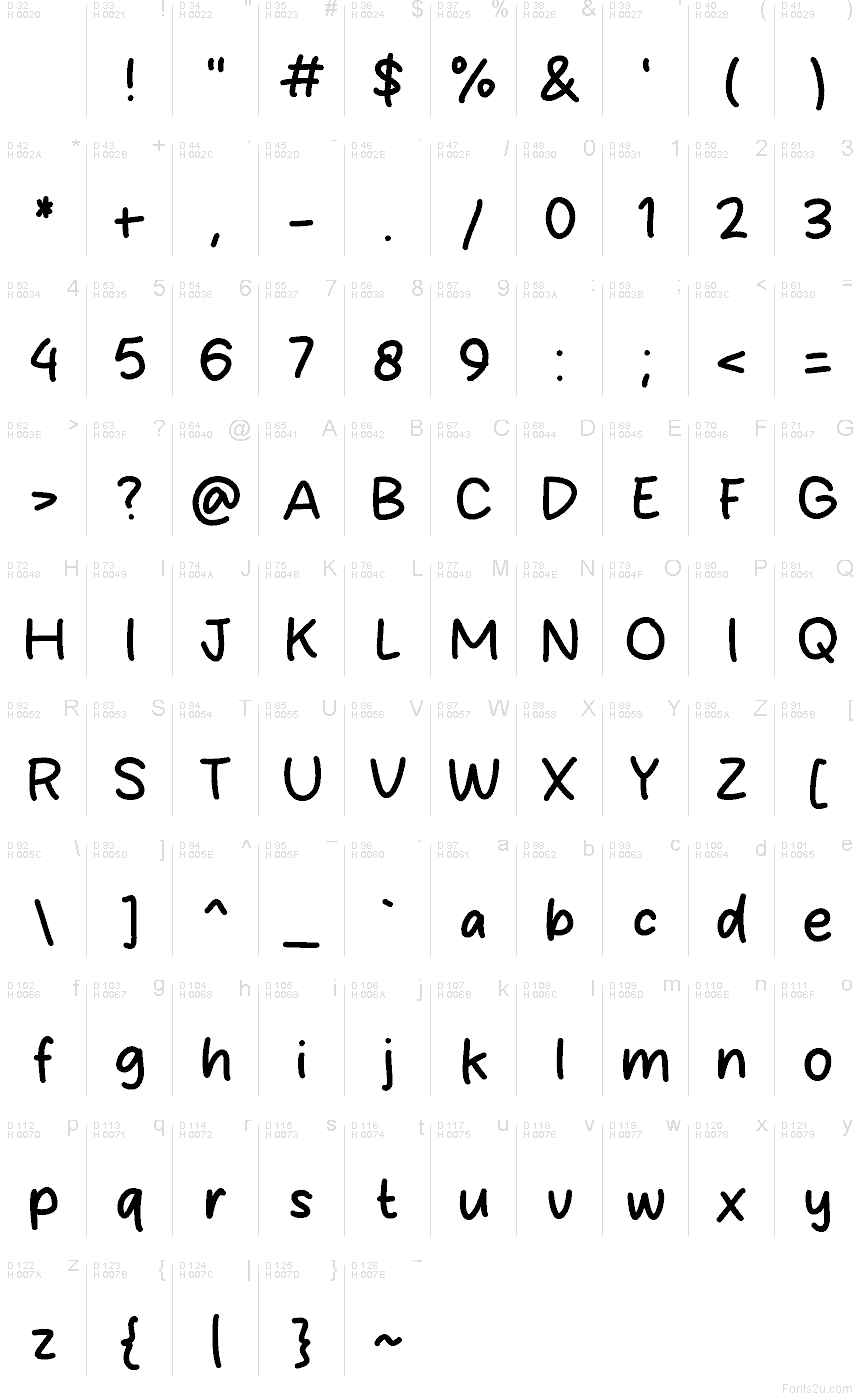
Ricko Brush
Ricko Brush font by Origin Type is a free handwritten font that captures the feel of quick, confident marker strokes without sacrificing clarity. Its rounded forms and even rhythm make it look like a natural note jotted on a whiteboard, but with enough polish to hold up in real layouts. The letters sit close and cozy, creating a warm, approachable texture that feels friendly rather than messy.
Using Ricko Brush, this free font shines on branding for casual products, social media graphics, YouTube thumbnails, stickers, event posters, and kids’ projects where you want energy without chaos. It reads smoothly at medium sizes, so you can push it a bit larger for headlines and pair it with a clean sans serif for body copy. This handwritten typeface works beautifully anywhere you need an upbeat, human touch that still stays legible.